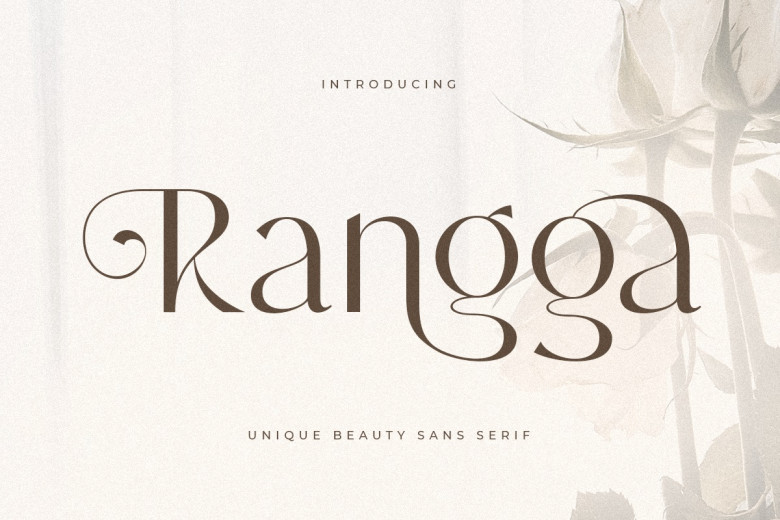
Rangga Font
Rangga is a new sans-serif font inspired by modern and minimalist concept that has strengthened with clean and curved lines. Especially suited as editorial designs, luxury branding, and web typography, its form adds academic value to every design. Select Rangga for an artistic appeal of current trends in your art works
Rangga Sans Serif Font